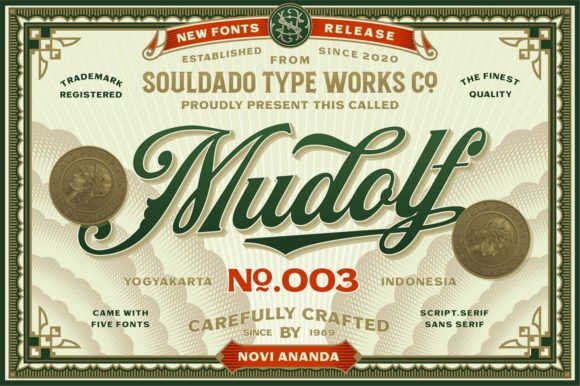
Journey back to a time of timeless elegance with Mudolf Font, the enchanting display font that exudes a touch of nostalgia and vintageness. This captivating creation by NoviSouldado is more than just a font; it's a gateway to a world of artistry and expression. With its graceful swashes and elegant ligatures, Mudolf Font is a versatile masterpiece that adapts effortlessly to your creative vision.
Mudolf Font is a visual symphony that dances across your designs, evoking a sense of wonder and nostalgia. Each letter is a work of art, carefully crafted to capture the essence of vintage charm. The swashes and ligatures flow together like a symphony, adding a touch of playful elegance to your creations.
Whether you're a seasoned designer or just starting your creative journey, Mudolf Font is the perfect companion for your artistic endeavors. Its user-friendly nature makes it accessible to all skill levels, while its versatility allows you to explore a wide range of design possibilities. From logos and branding to invitations and posters, Mudolf Font effortlessly elevates your designs, leaving a lasting impression on your audience.